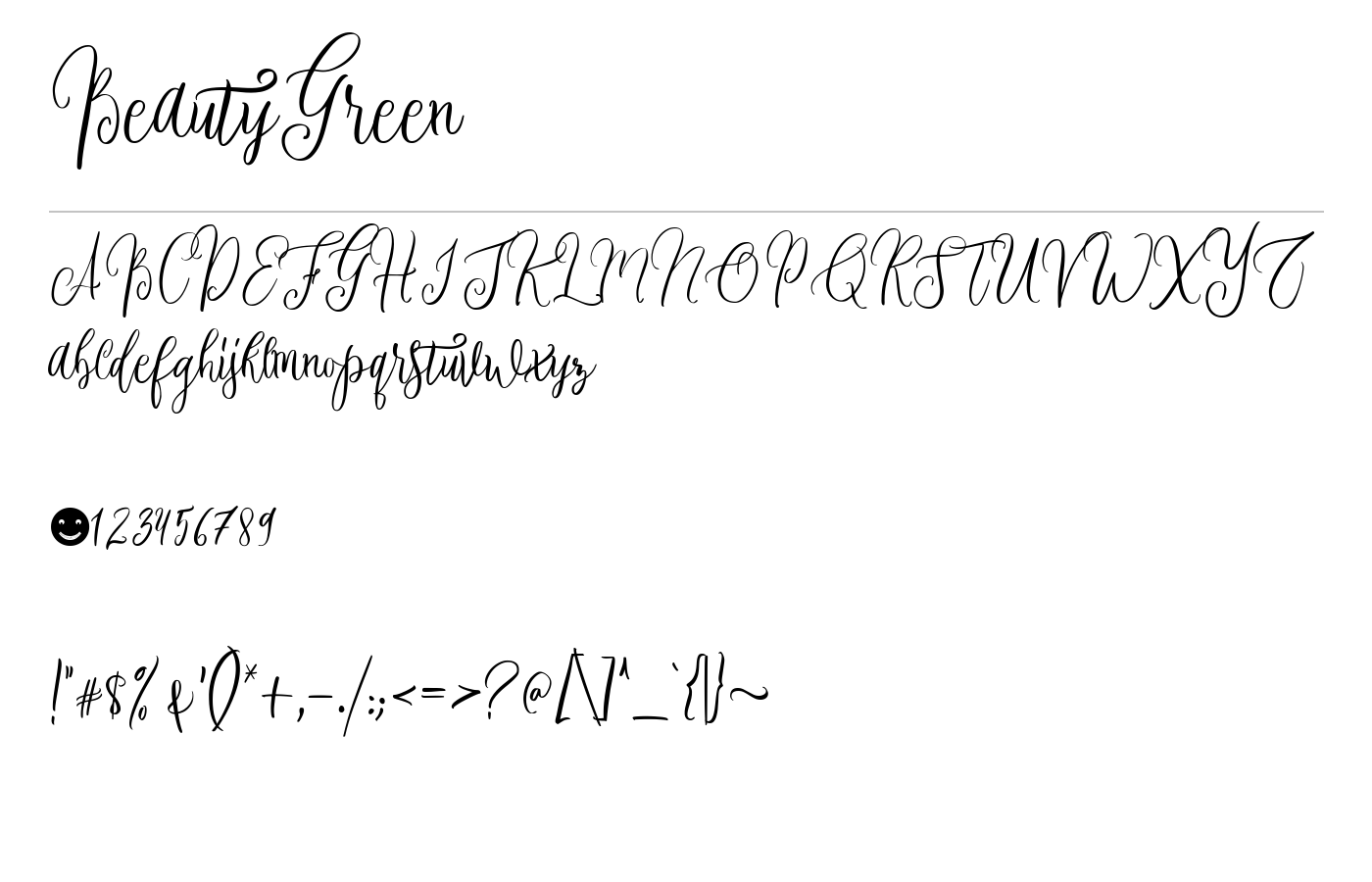
BeautyGreen is an elegant, handwritten script font with delicate, flowing strokes and a light weight that gives it an airy and graceful feel. Its high contrast and fine lines combine with stylish flourishes to create a sophisticated, feminine look perfect for luxury branding, wedding invitations, and upscale packaging. This font works best in headlines or decorative text where its intricate details can shine and add a touch of refined charm.
BeautyGreen Font
About BeautyGreen Font
| Font family | BeautyGreen Font |
| Designer | Rachma |